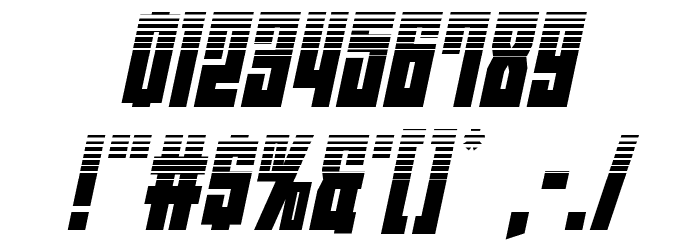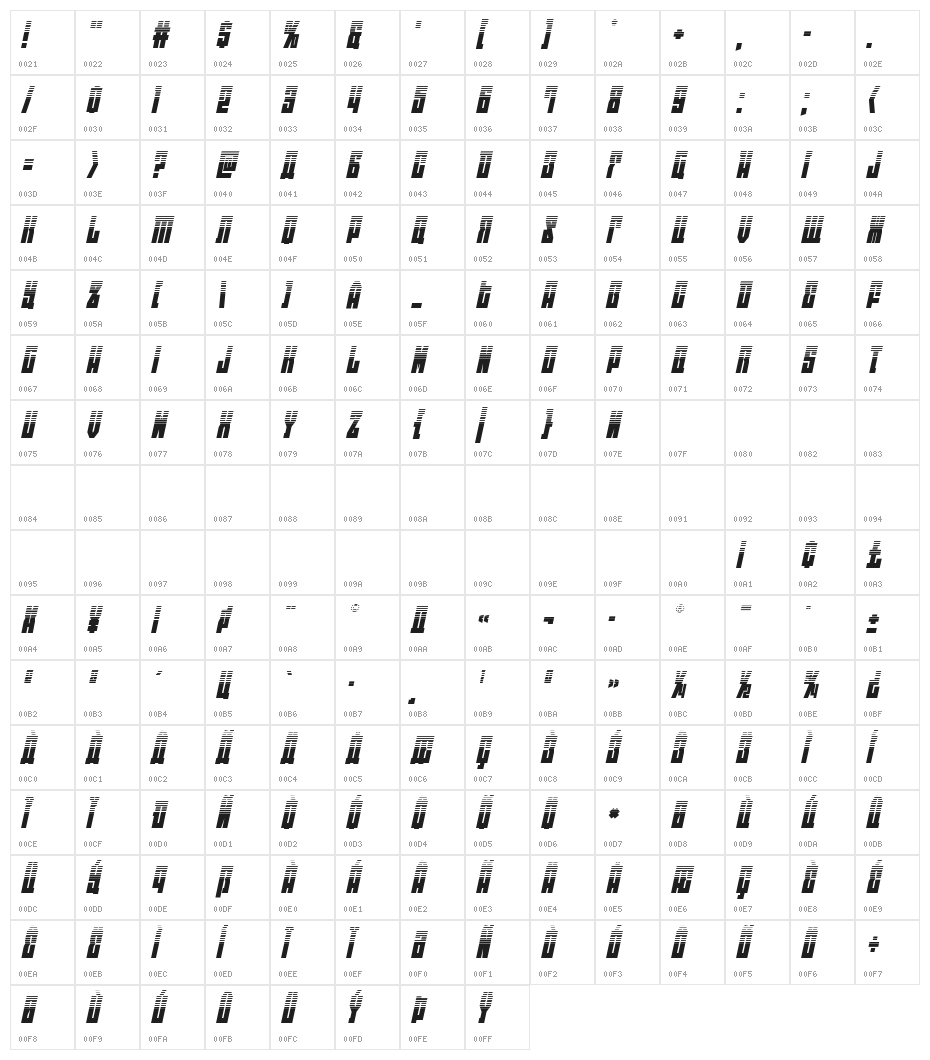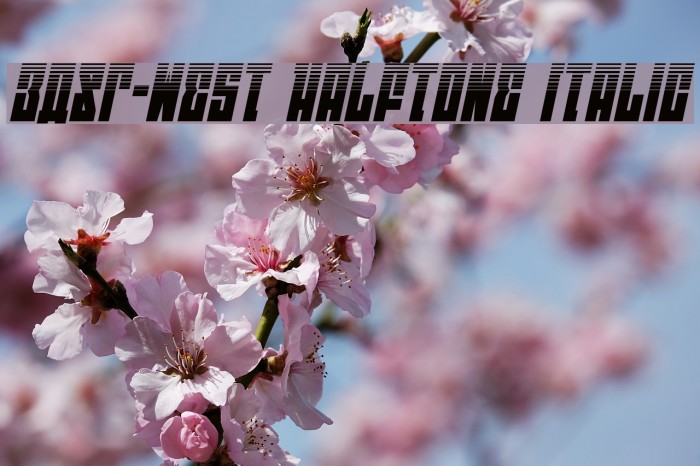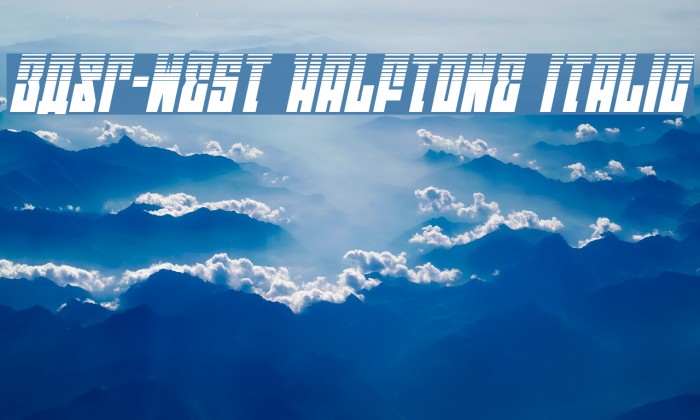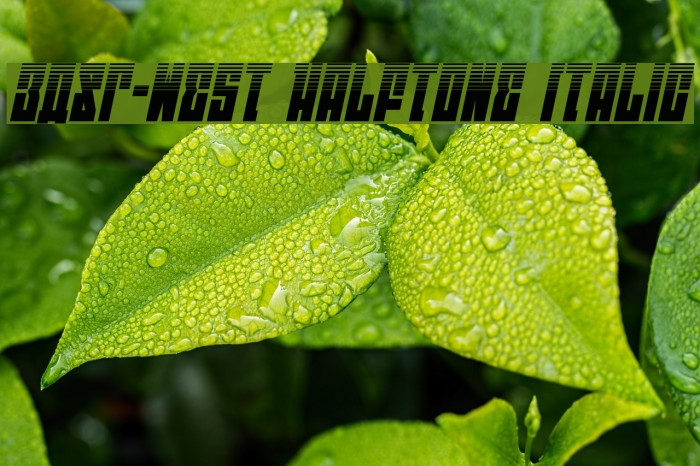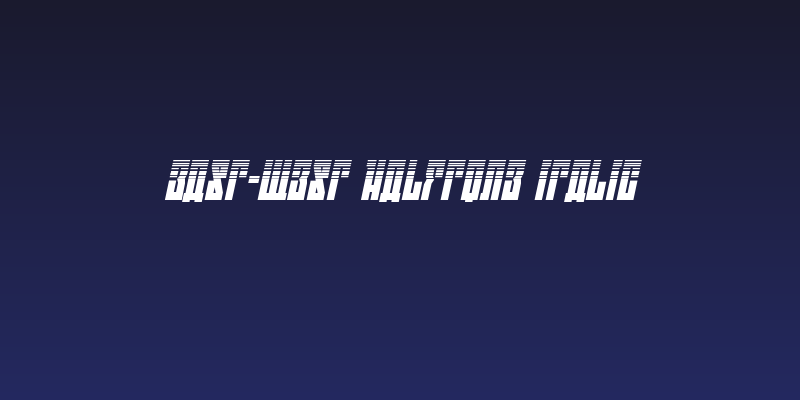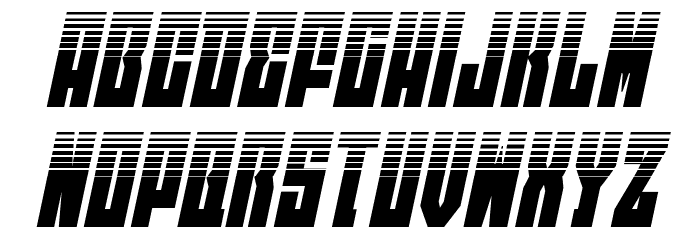
EAST-west Halftone Italic Font
EAST-west Halftone Italic Description
This font features a bold, dynamic style with a distinct halftone effect that creates a sense of movement and energy. The uppercase and lowercase letters are designed with a strong geometric structure, incorporating horizontal lines that give a unique, layered appearance. The italic slant adds to the dynamic feel, making it suitable for attention-grabbing designs. The numbers and special characters maintain the same bold and layered aesthetic, ensuring consistency across all glyphs. This font is ideal for projects that require a modern and edgy look, such as sports branding, posters, or digital media.